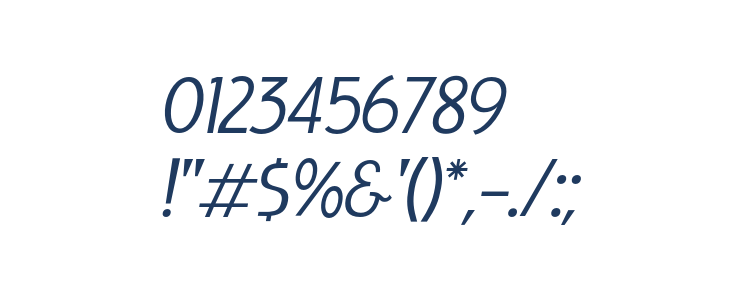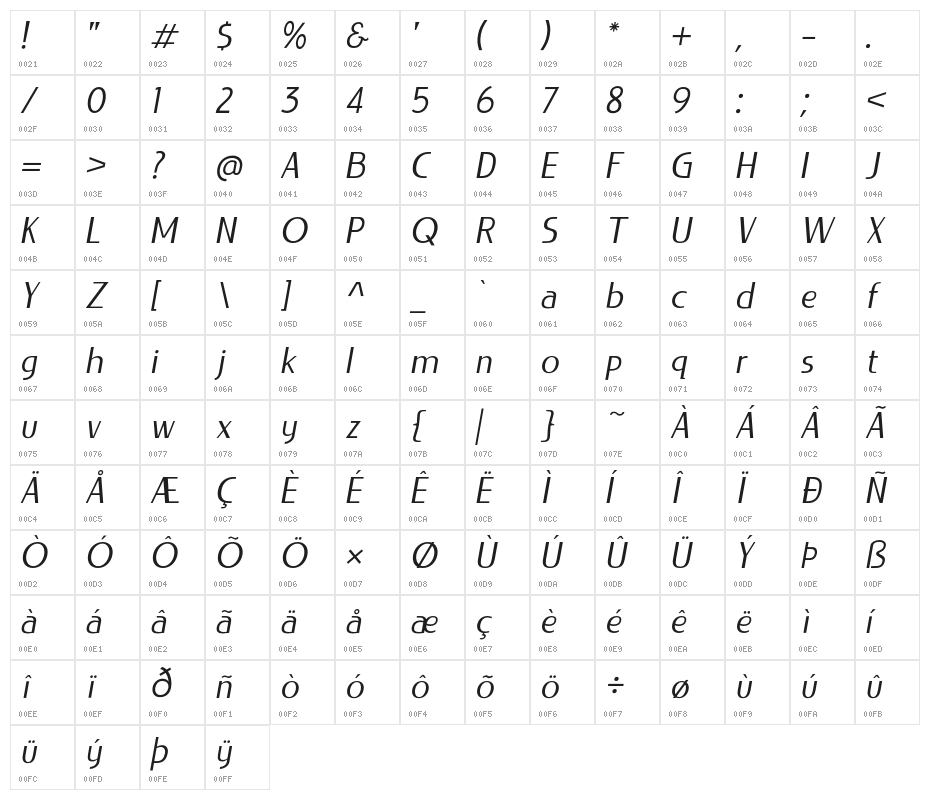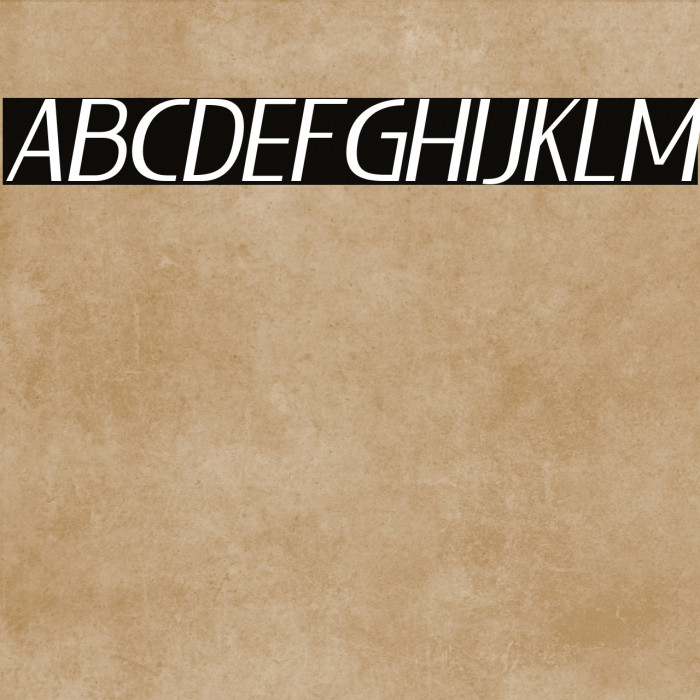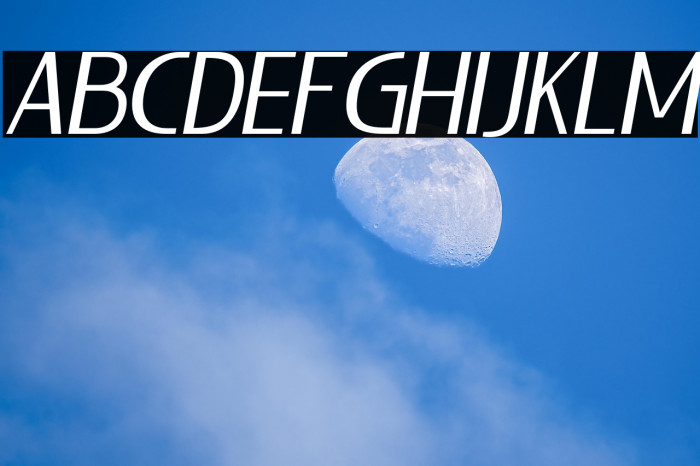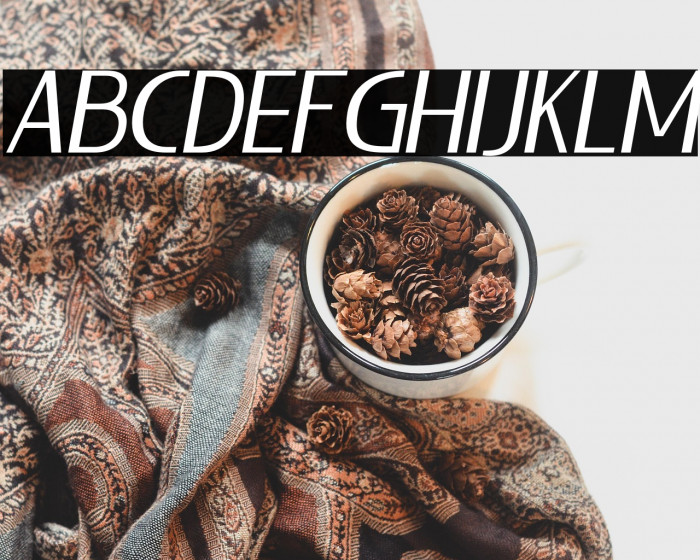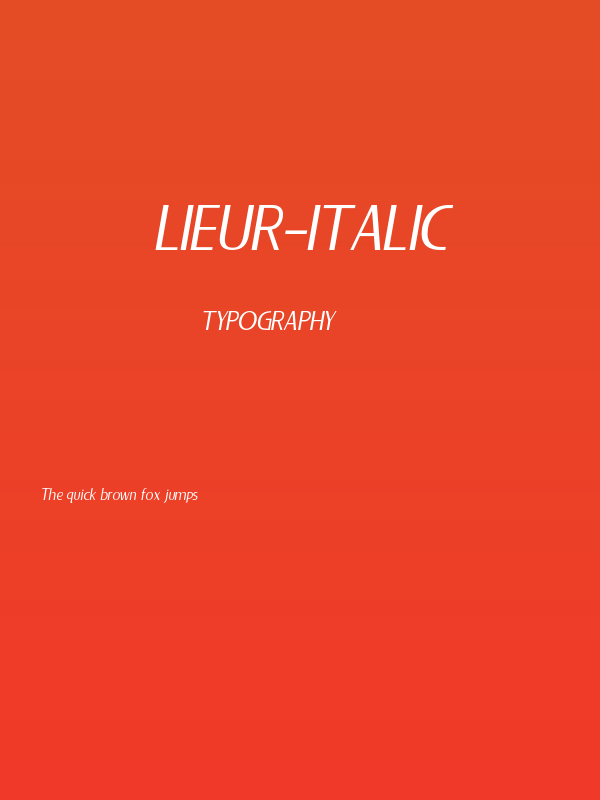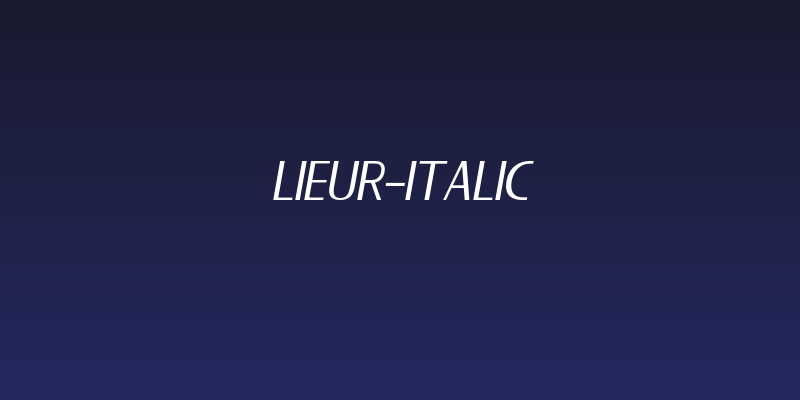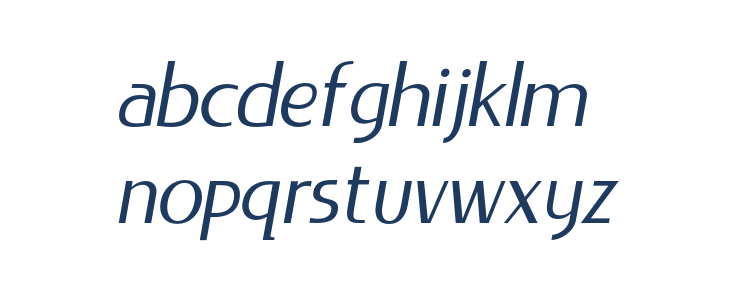
LIEUR-Italic Font
LIEUR-Italic Description
This font features a sleek and modern design with a distinct italic slant, giving it a dynamic and forward-moving appearance. The characters are elegantly crafted with smooth curves and clean lines, providing a sense of sophistication and style. The uppercase and lowercase letters maintain a consistent flow, while the numerals and special characters are designed to complement the overall aesthetic. The font's design is versatile, making it suitable for a variety of applications where a contemporary and stylish look is desired.
| Proposed Projects | Ideal for branding, advertising, and editorial design projects that require a modern and stylish touch. |